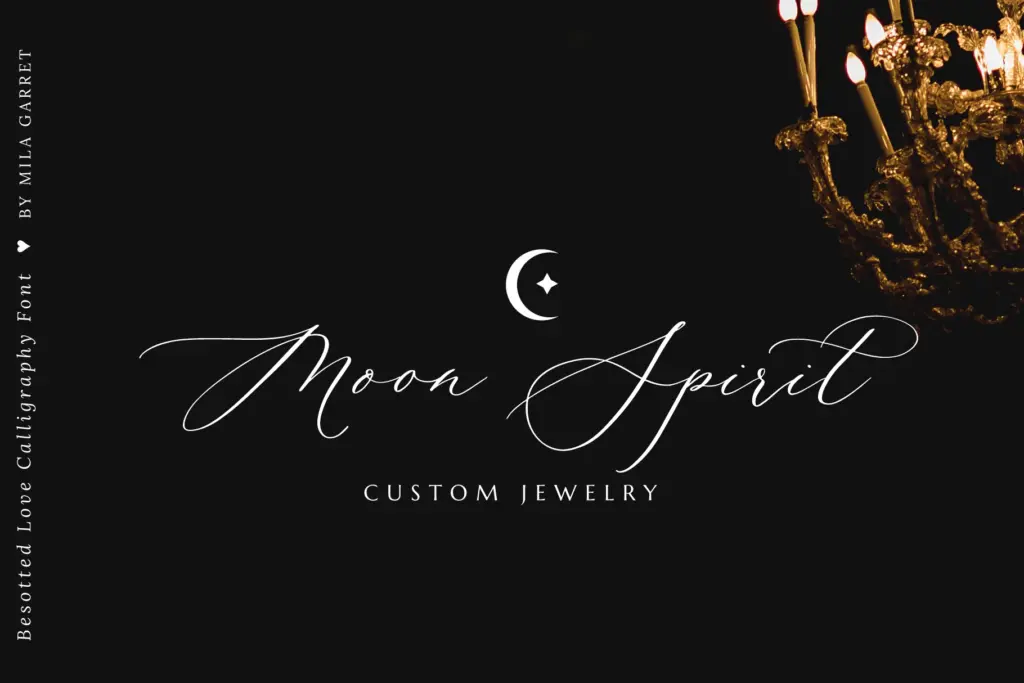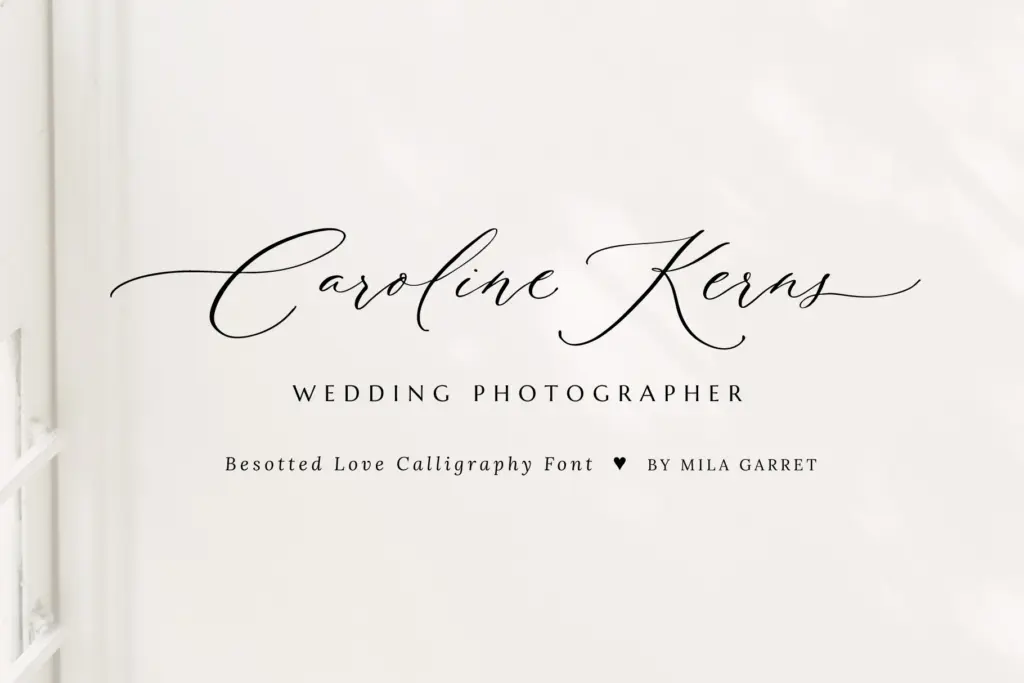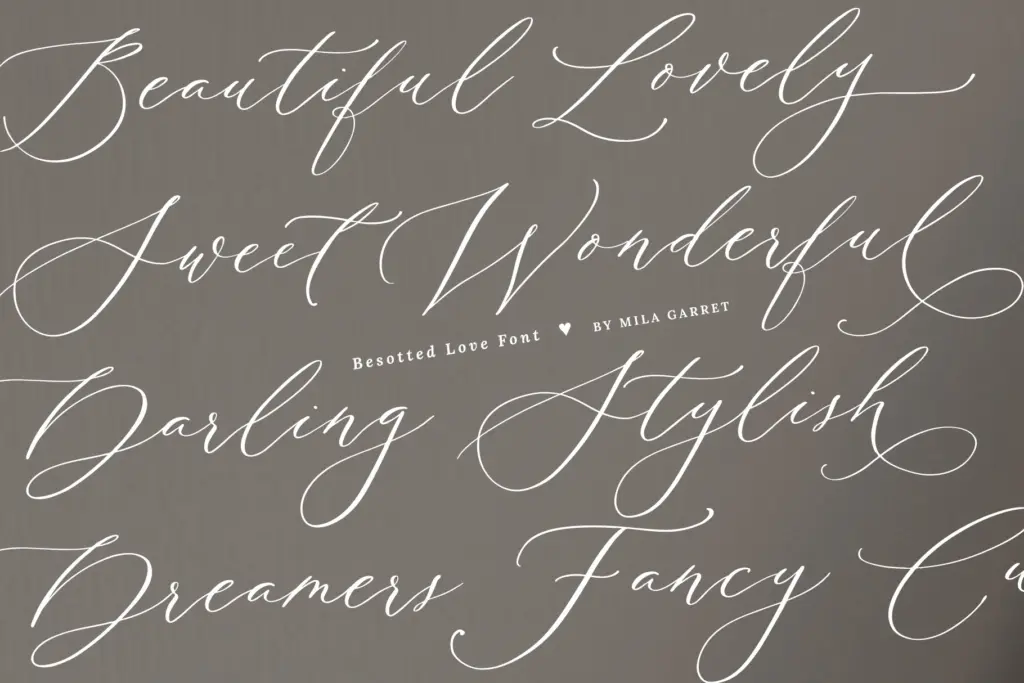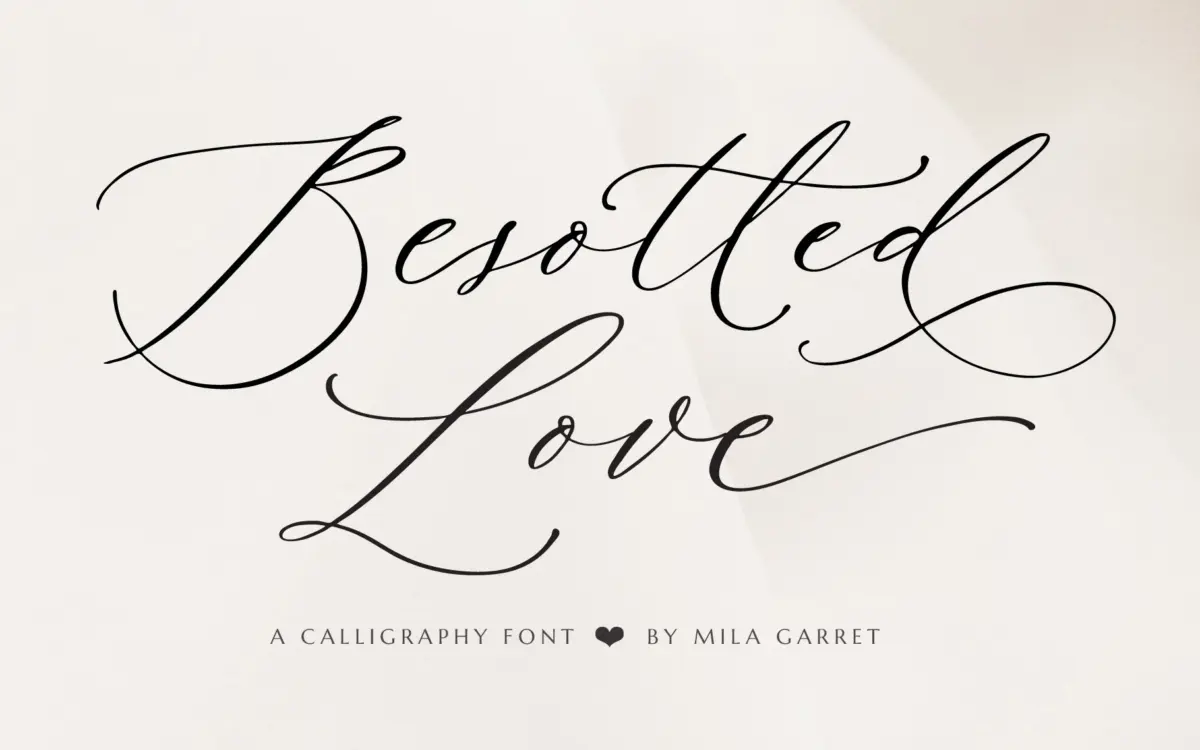
Besotted Love belongs to the crowded but reliable family of hand-lettered wedding scripts: narrow nib contrast, a forward lean, and letters that connect the way a fluid marker or brush pen would connect if the hand behind it had practiced a lot. It doesn’t try to look calligraphic in the pointed-pen sense — there’s no dramatic thick-thin swing — but it has enough variation in stroke weight to read as handwritten rather than mechanical.
The uppercase is where the personality sits. Capitals carry looping entry strokes and tails that extend well past the letter body, clearly built for the first letter of a name or monogram rather than for running text. Lowercase is calmer, joining cleanly baseline to baseline, which keeps the font legible once you get past the initial flourish. It’s a design that knows its job: one dramatic letter, a quiet rest of the word.
The set is built in layers rather than as a single alphabet. There’s a standard uppercase and lowercase, then a separate set of swashed capitals, plus beginning and ending lowercase swashes that swap in for the plain versions when a word starts or finishes on a particular letter. Stylistic alternates add more variation on top of that. Everything is PUA-encoded, meaning the extra glyphs sit on their own keyboard shortcuts and are reachable from basic text tools rather than requiring OpenType-aware software — useful if you’re stuck in something like Word or Canva rather than Illustrator or InDesign.
Punctuation is covered, and the multilingual character set extends to a solid range of accented Latin characters — French, German, Scandinavian and a few Central European diacritics are all present, along with currency symbols. That’s a meaningful inclusion for a script this ornamental, since accented swash letters are exactly the kind of thing that get forgotten in scripts built primarily for English wedding invites.
The trade-off with a layered swash system like this is that it puts the composing work back on the designer. Nothing here auto-connects or auto-swaps by context; you’re manually choosing which capital, which beginning swash, which ending swash suits the specific word. That’s normal for scripts of this type, but it means the font rewards someone comfortable manually kerning and swapping glyphs, and can look clumsy in the hands of someone who just types a sentence and expects it to behave.
This is a single-word, single-line typeface more than a paragraph typeface. Names on invitations, monograms, logo wordmarks for photographers and florists, save-the-date headers — anywhere you need one or two words to carry warmth and a sense of occasion. The swash capitals are strong enough to stand alone as a logotype initial even without the rest of the word attached.
It’s less suited to body copy or anything that needs to be read quickly at small sizes — the joins and swashes lose clarity below a certain point, and dense wedding-invite text is better handled by a plain serif or sans paired underneath it. Used as an accent rather than a workhorse, it does its one job well.
- Swash capitals are dramatic enough to work as standalone logo marks
- PUA encoding makes the extra glyphs accessible without OpenType-aware software
- Multilingual character support covers accented Latin glyphs often missing from wedding scripts
- No automatic contextual swapping means manual glyph selection is required for good results
- Legibility drops quickly below display sizes, ruling out body text use
Besotted Love is a competent, well-drawn wedding script that leans hard on its swash capitals and asks the user to compose rather than just type. It's strongest as a single-word logotype or monogram font, and weakest anywhere it needs to carry sentences.